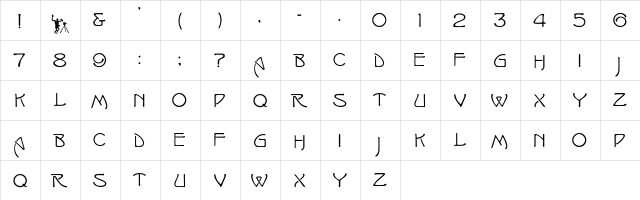
Isabelle Regular
Design Context for Isabelle Typeface
Isabelle is a composed and adaptable typeface that performs quietly and consistently across a wide range of design contexts.